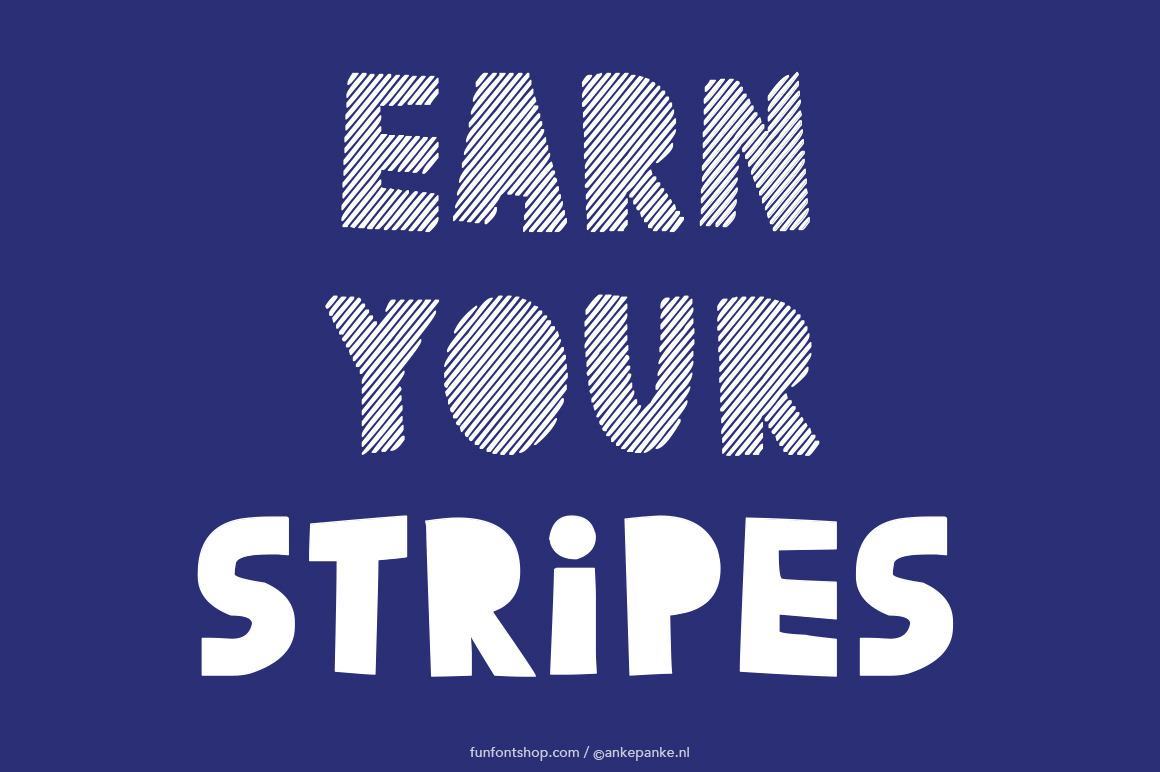
Earn Your Stripes handmade Font
The shape of the letters of this playful font are the same for lower- and uppercase, but one is positive and the other negative, fun to mix it up! This font was first draw by hand, scanned, vectorized and converted to a TTF file so you type with it. They have some imperfections, but I believe that adds to the handmade feeling.
- Letters Uppercase and numbers
- Extra heart, star, diamond and triangles